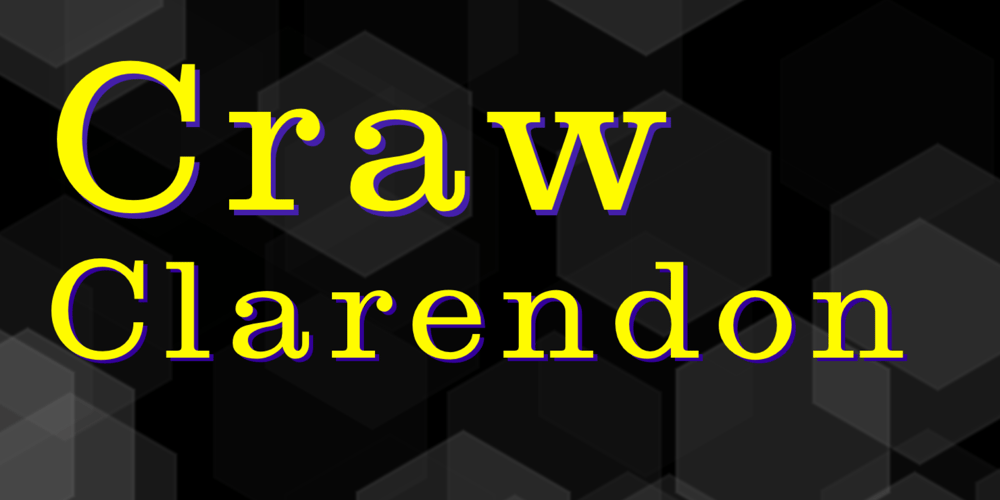
Craw Clarendon
Craw Clarendon font
Craw Clarendon Font Family was designed by Jordan Davies and published by Wooden Type Fonts. Craw Clarendon contains 1 styles and family package options. One of the many Clarendon font designs, this one based in part on the Craw Clarendon design.